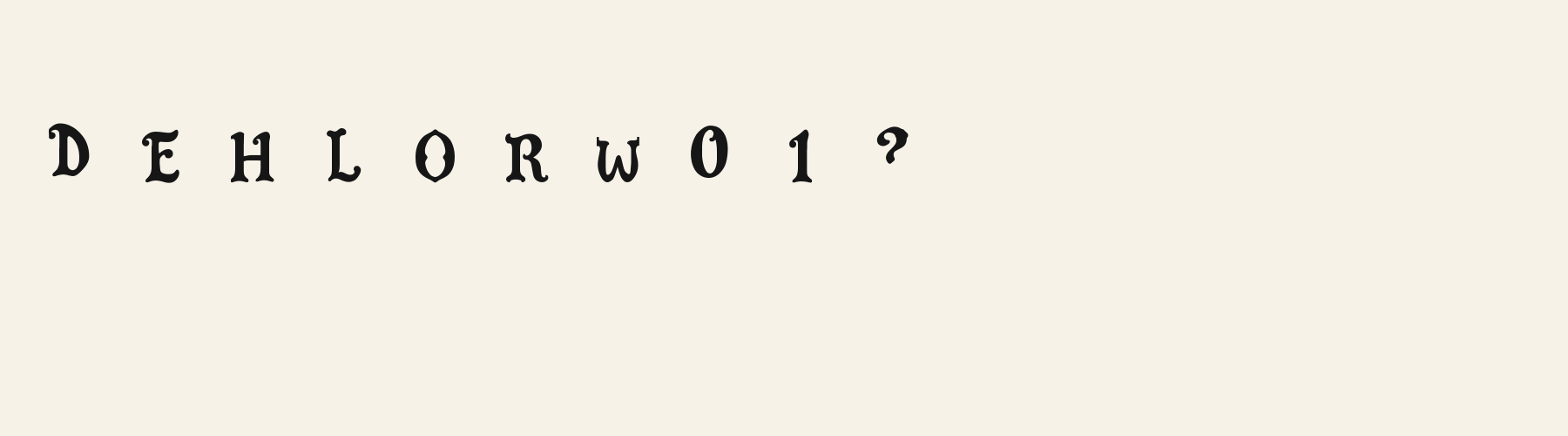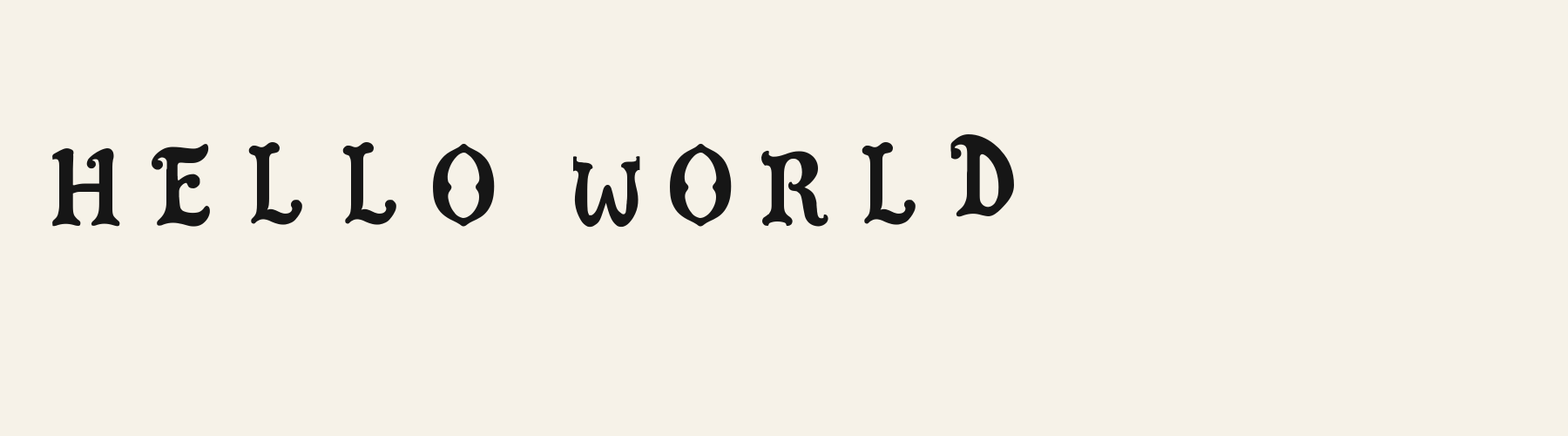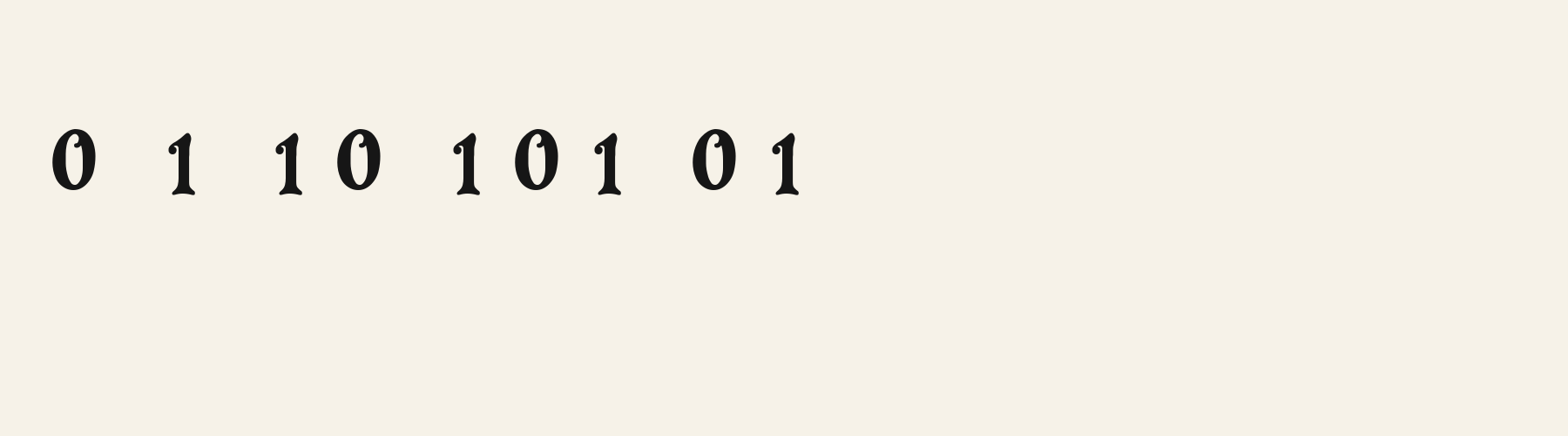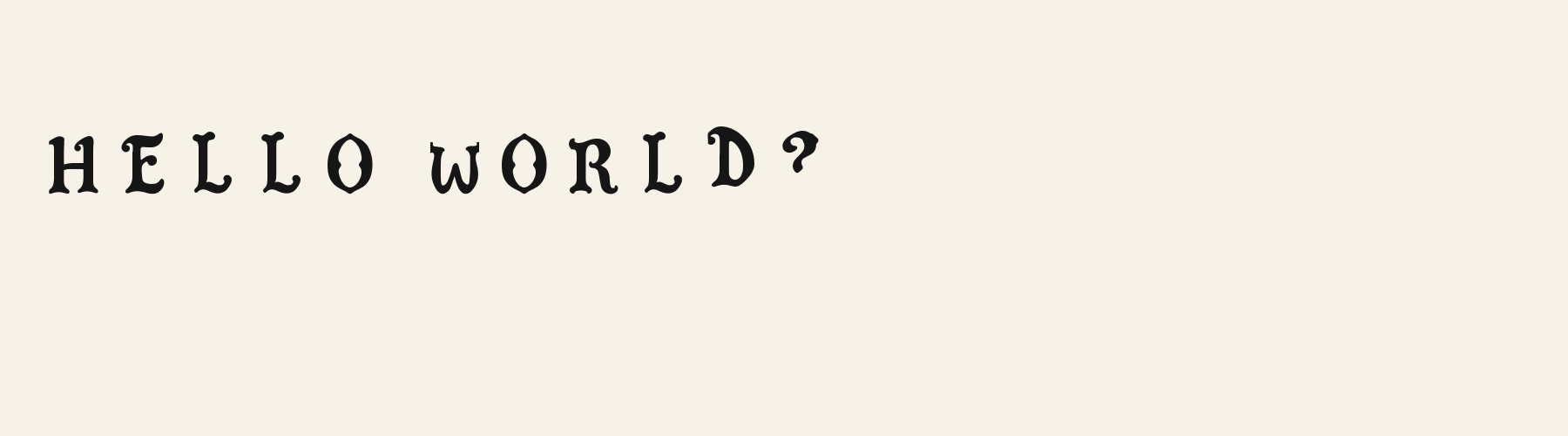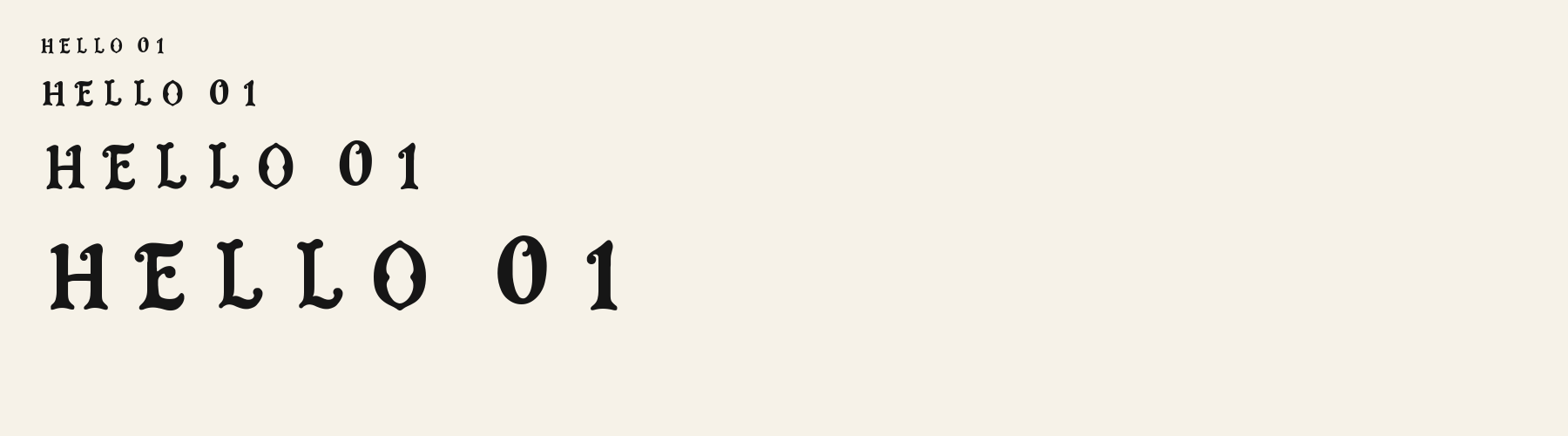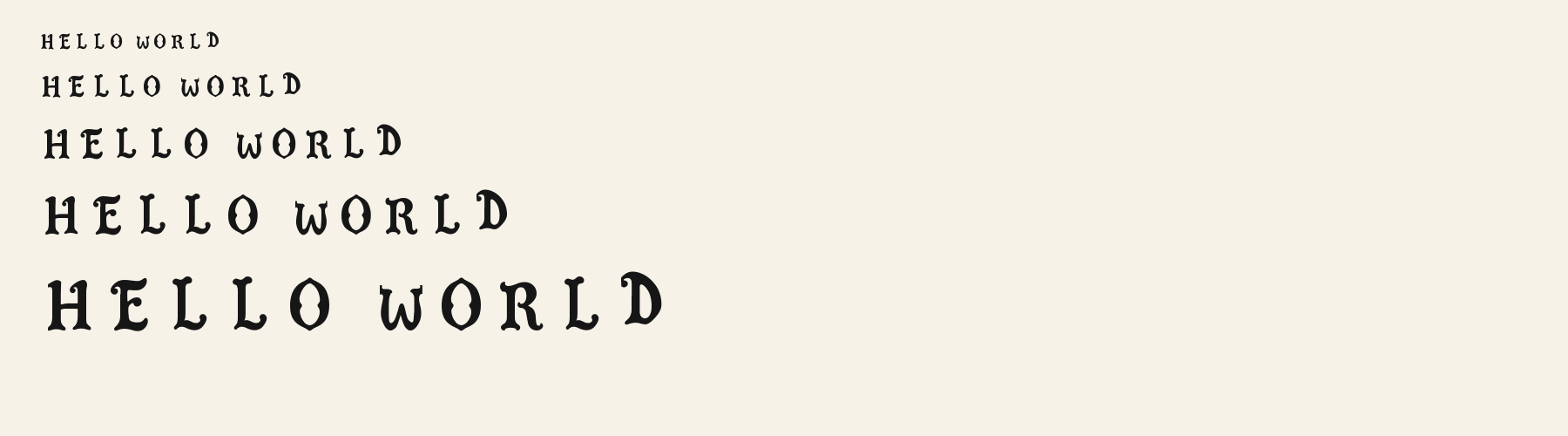
Gothic Lombardic Round combines heavy upright strokes with swollen curves and small curled terminals.
Gothic Lombardic Round combines heavy upright strokes with swollen curves and small curled terminals. The O narrows to points at its crown and base, with inward pinches shaping an almond-like counter. The E carries a sweeping top arm, a curled upper-left entry, and a bulb at the end of its middle arm. The R gathers weight in its rounded bowl before sending its leg down into an outward curl. These details give the capitals a ceremonial, storybook character without filling every opening with ornament. Repeated curved feet make a line feel patterned, while the dark strokes give short titles a firm presence.
Inspect the pinched O counters, curled R legs, and repeated L feet in your actual wording. Check neighboring letters individually because spacing relies on side bearings. For Latin accents or other scripts, verify character availability and test a suitable fallback alongside the display lettering.
Try this face for a brief main heading, with a plain sans serif handling descriptions and small labels. Its dark bowls and curled feet already provide substantial detail, so a companion with simple terminals could keep the supporting information visually calm.
Compare the original spacing with a slightly wider setting. Watch how the repeated L feet establish a rhythm and how the broad W changes the gap before O; extra space may clarify the ornaments while loosening the word shape.
Gothic Lombardic Round gives this phrase upright stems, compact curled feet, and pointed oval O forms. Its H has a direct crossbar, keeping the opening letter relatively familiar within the ornamental setting.
Banner Fraktur spreads the phrase into broader, more folded shapes. Its L has a large open upper loop and sweeping base, while its W interweaves several strokes. Try it when those expansive gestures belong in the composition.
Its lowercase sits low: the x-height is 70.1% of the cap height, where the median for decorative fonts is 74.4%, lower than 30 of the 36 other decorative fonts. Ascenders on b, d, h, k and l rise 16% above the capitals, and descenders on g, j, p, q and y drop 26.9% of the cap height below the baseline, deeper than 24 of the 36 other decorative fonts. Its letters are of average width for decorative fonts: an average lowercase letter, spacing included, is 76.1% as wide as the capitals are tall (an average capital, 84.1%), within 0% of the median. The o is close to a circle, 0.95 times as wide as it is tall, and R is the widest capital, at 1.06 times the width of H. The O stops 5% of the cap height short of H and dips 1.2% below the baseline.
The letters stand upright, leaning less than 2.5° either way. Vertical stems measure 16.8% of the cap height, heavier than 18 of the 23 other decorative fonts. Ink covers 40% of each lowercase letter's box (its advance width by the cap height), darker than 25 of the 36 other decorative fonts.
Its 95 characters include 52 Latin letters, plus 43 figures, punctuation marks and symbols; there are no accented Latin letters beyond A to Z. The word space measures 53.1% of the cap height, and the blank space either side of a lowercase letter takes up 13% of its width. The font carries no kerning, so spacing comes from each letter’s own side bearings. The figures have different widths, so columns of numbers set in Gothic Lombardic Round will not line up exactly.